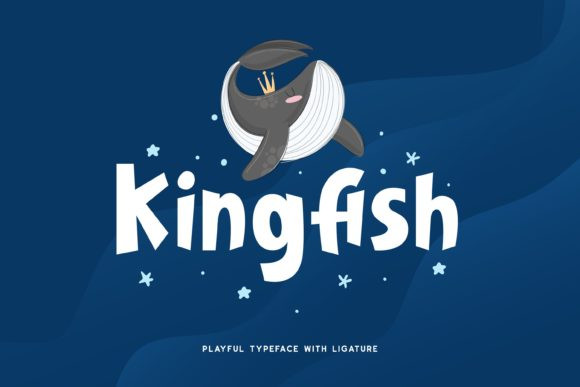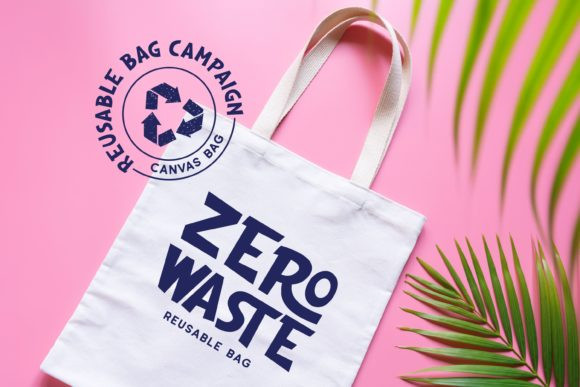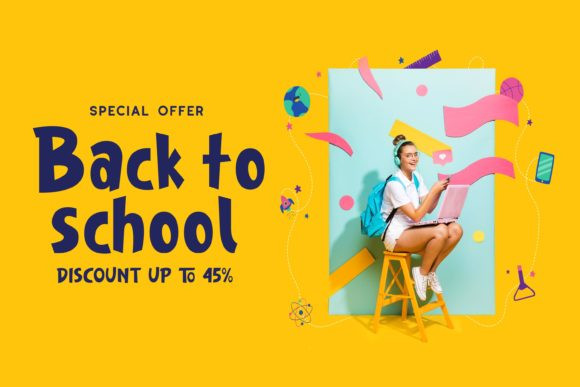
Kingfish Font
Kingfish is a perfectly playful display font with sweet ligatures. Use it to spice up any kids, school or kindergarten-themed design project!